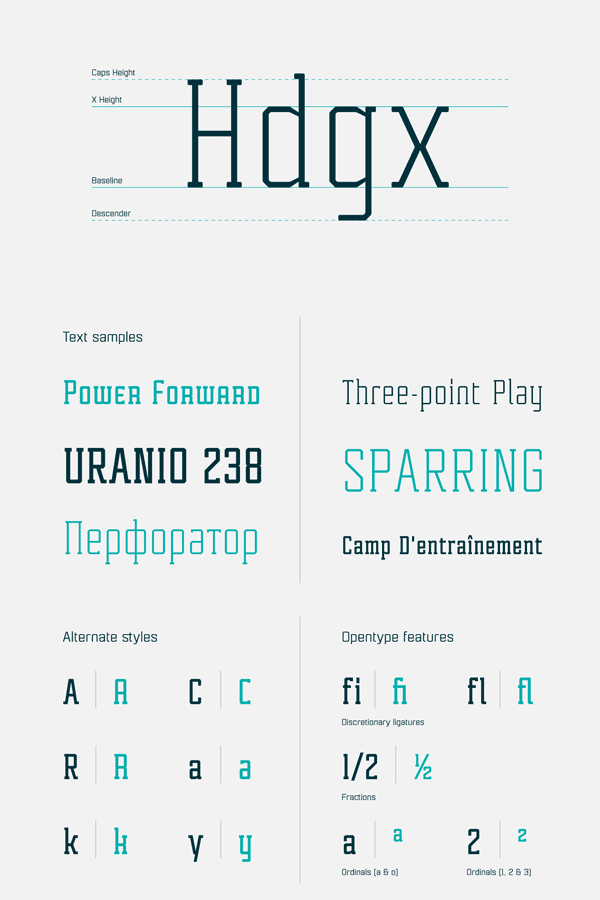
Tecnica Slab, a modular, geometric typeface.
Argentinian type designer Pablo Balcells of foundry Graviton has created the Tecnica Slab font family in 2014. Tecnica Slab is a modular, geometric slab serif font family. This condensed typeface has an edgy design with slightly rounded angles. The font family is packed with alternative styles, which have a more playful look. Its technical appearance has been conceived for the use as display font in any kind of contemporary design. Tecnica Slab looks great in headlines as well as concise text blocks.
Tecnica Slab includes two basic weights plus alternative styles for each weight. In addition, the type family offers different OpenType features such as discretionary ligatures, fractions, and ordinals. Tecnica Slab supports multiple languages and is available as both web font as well as desktop font.
This is truly a slab serif typeface for multiple purpose. Whether print or web, this display font looks good in any design.